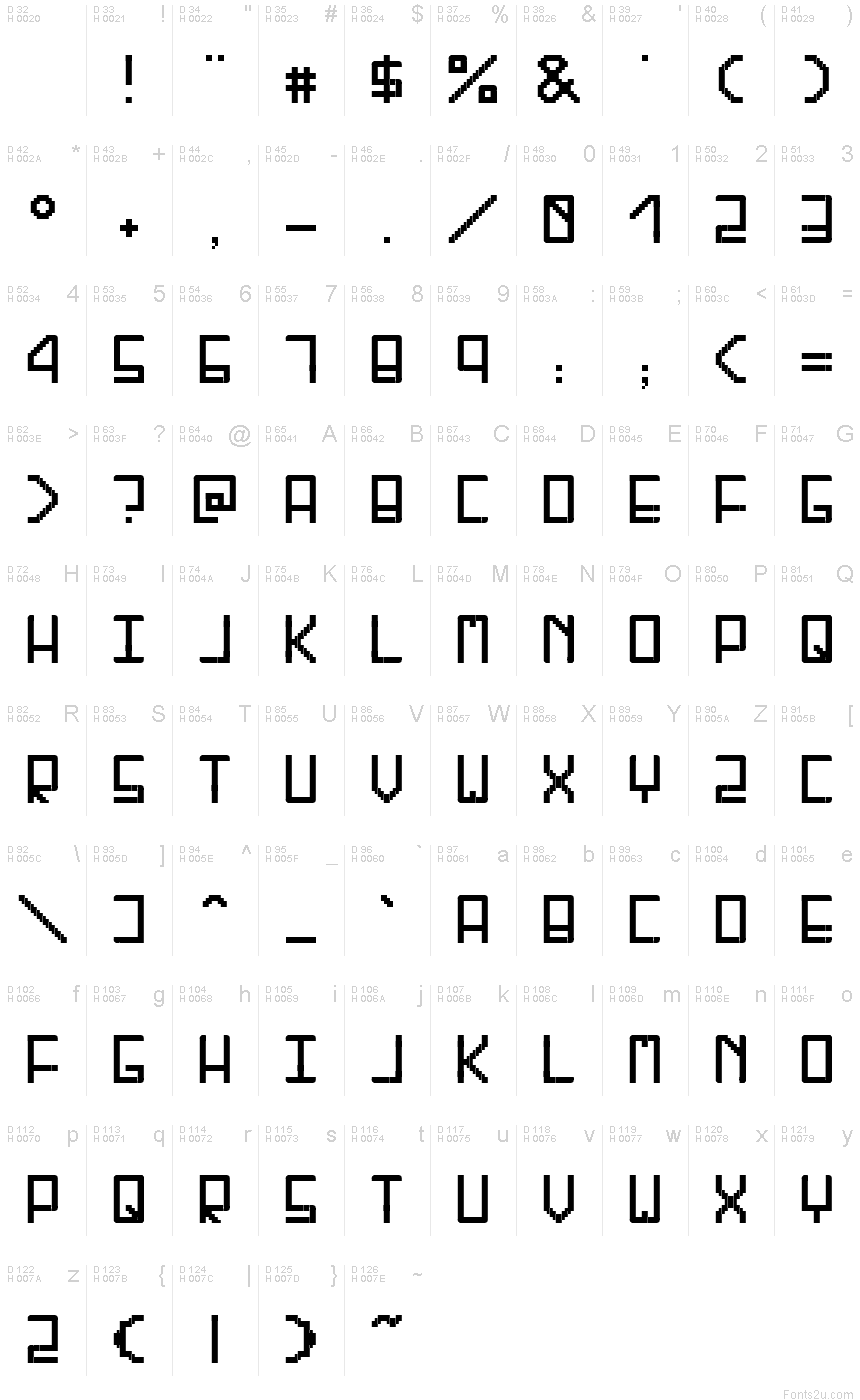
Barf At The Supermarket
Barf At The Supermarket font by Jason Skoog is a free pixelated bitmap typeface. Its tall, narrow shapes and hard square corners give it the clipped pulse of an arcade marquee or an old handheld boot screen, while the open spacing keeps all that blocky texture crisp instead of crowded.
Using Barf At The Supermarket works beautifully for retro game titles, chiptune album art, techy posters, stream overlays, sticker packs, zines, and UI mockups that need instant digital grit. This free font likes room to breathe—set it large and pair it with a clean sans serif for body copy so the crunchy rhythm stays sharp.